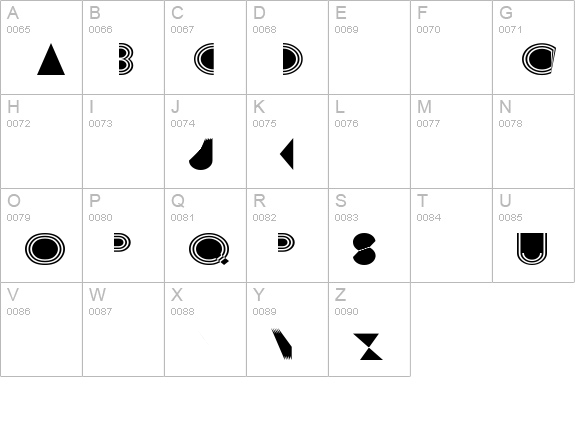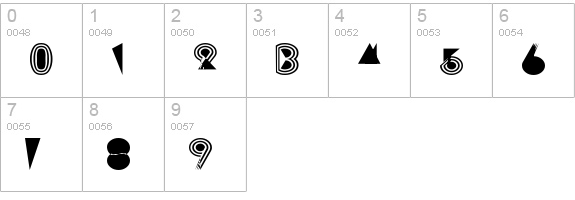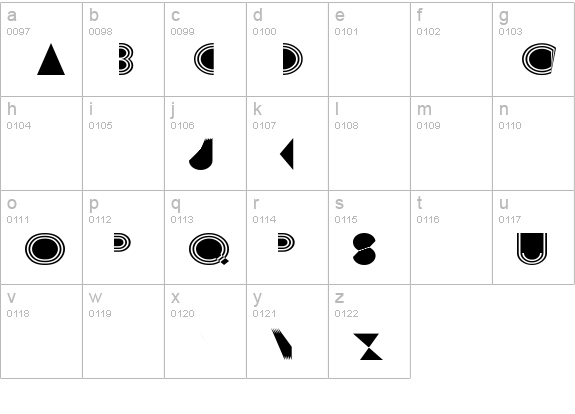
Prisma Wd Font Details
Prisma Wd font is a stunning display typeface that exudes elegance and sophistication. With its unique design and intricate details, this font is sure to make a statement in any project. The sleek lines and sharp angles of Prisma Wd font give it a modern and futuristic feel, perfect for adding a touch of style to your designs. Whether you're creating a logo, poster, or website, this font will elevate your work to the next level. Best of all, Prisma Wd font is completely free to download at FontsMarket.com. This means you can access this beautiful typeface without any cost, making it a valuable addition to your toolkit. Don't miss out on the opportunity to enhance your designs with the striking beauty of Prisma Wd font - download it today and get ready to impress!